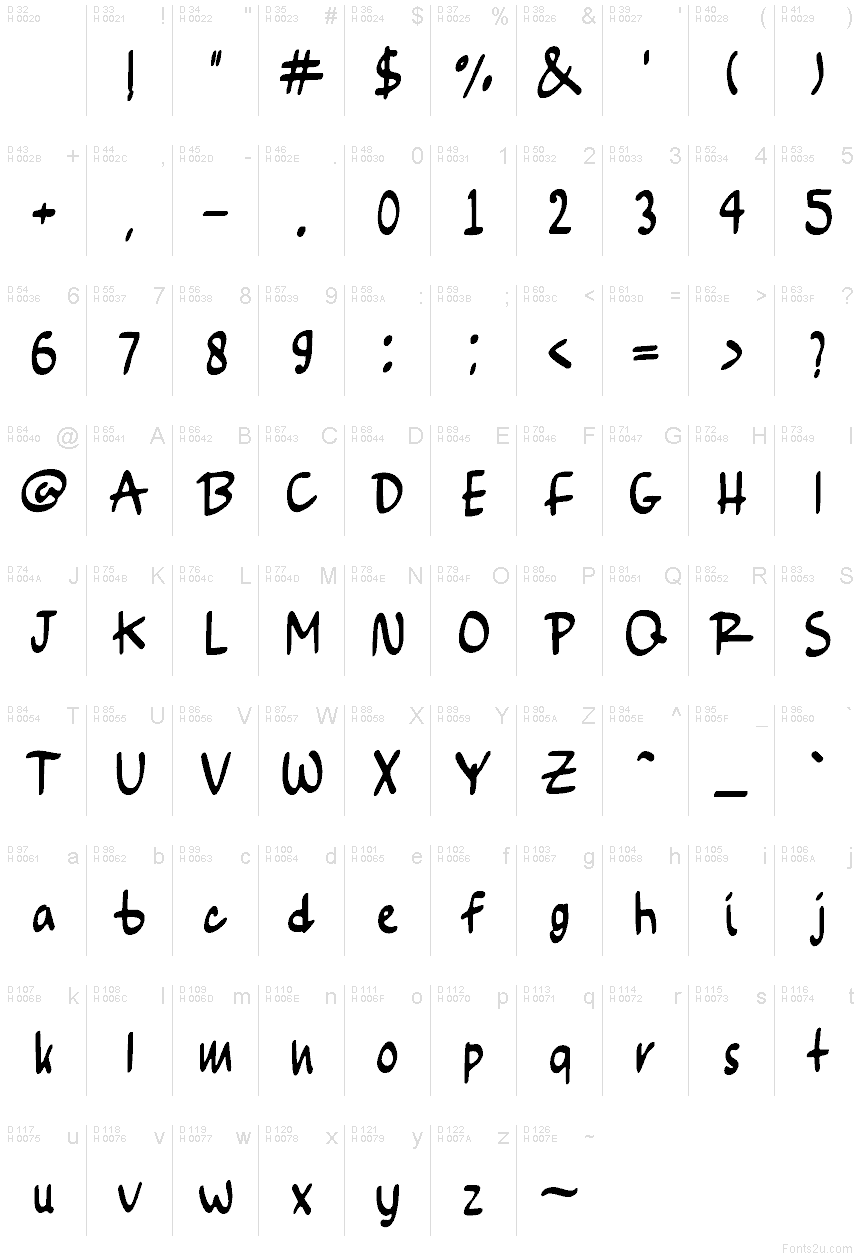
Self Confident
Self Confident font by Origin Type is a handwritten masterpiece with an expressive, freeform script style. Taking the reader on quite the journey, it showcases unique varying heights and understated curves that stand out in any project. With a distinctive artistic flair and modern feel, it gives designs an approachable appeal.
Free to use and vibrant in its appearance, Self Confident can be used for branding tasks like logos and business cards. It also looks intriguing in apparel design: T-shirts or motivational prints. Websites, promotional materials, social media posts, advertising publications are all potential matches for this fabulous font download.